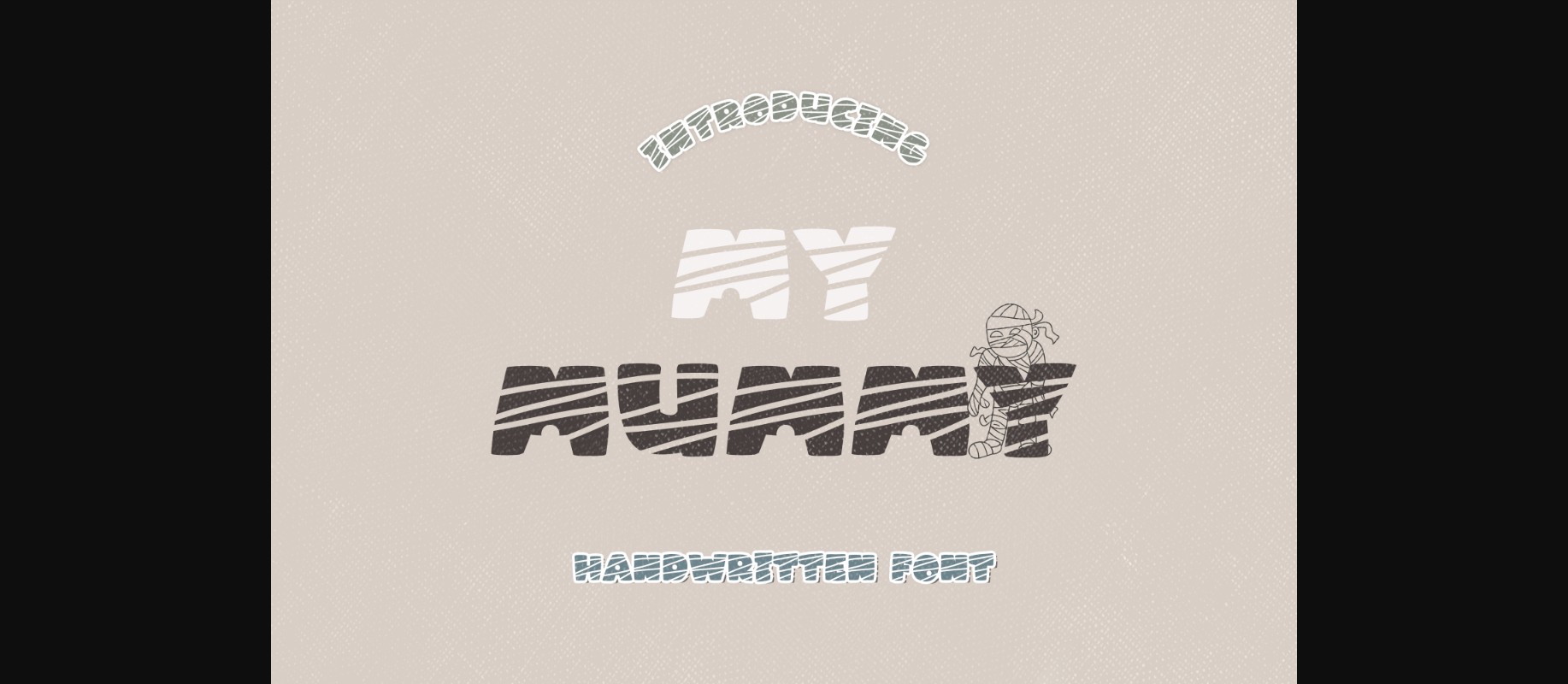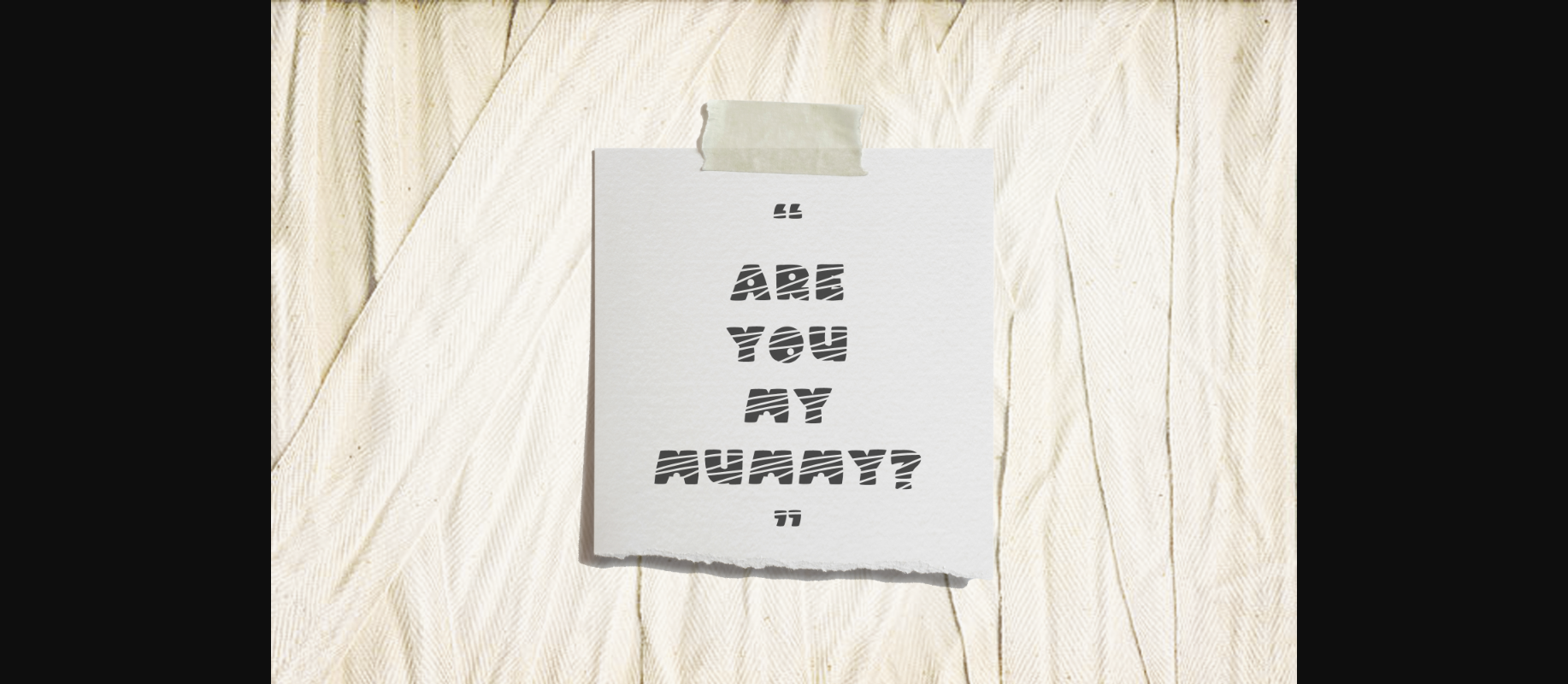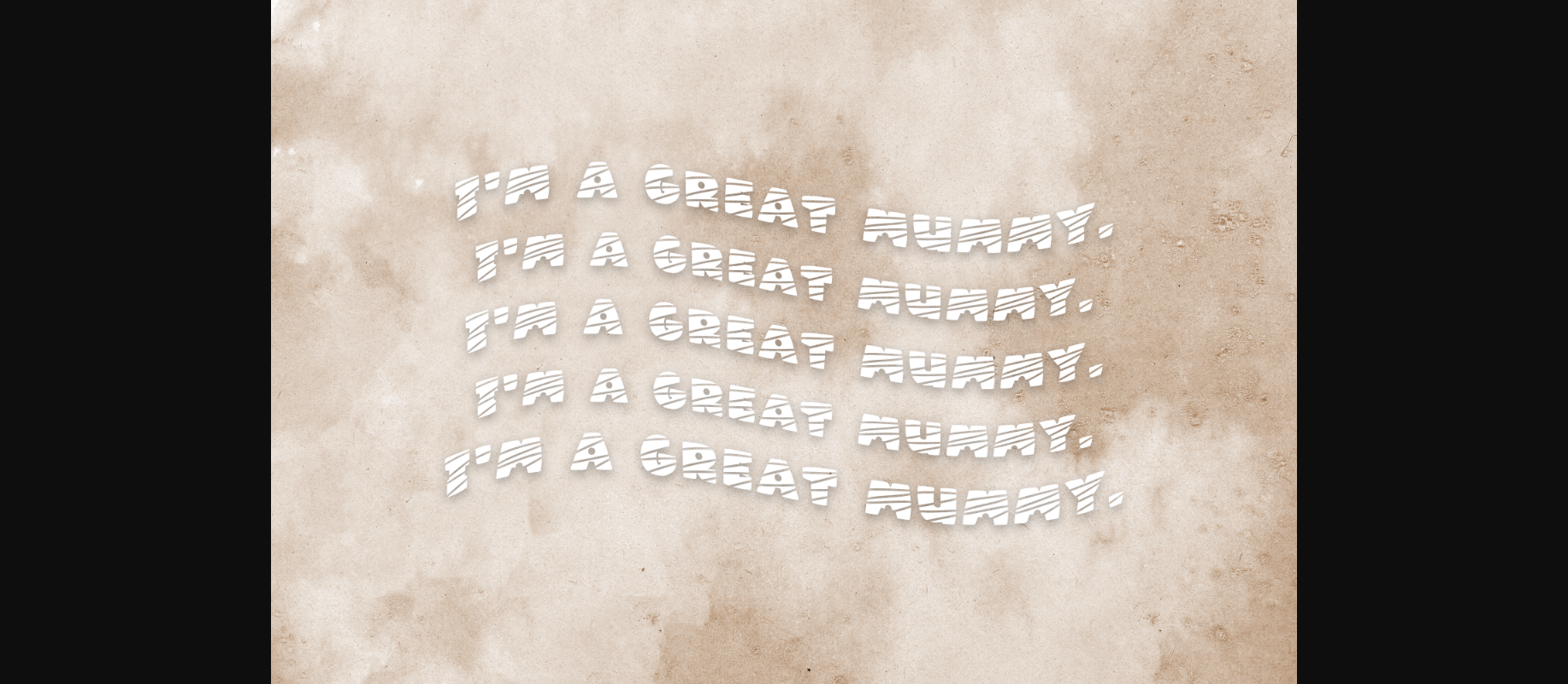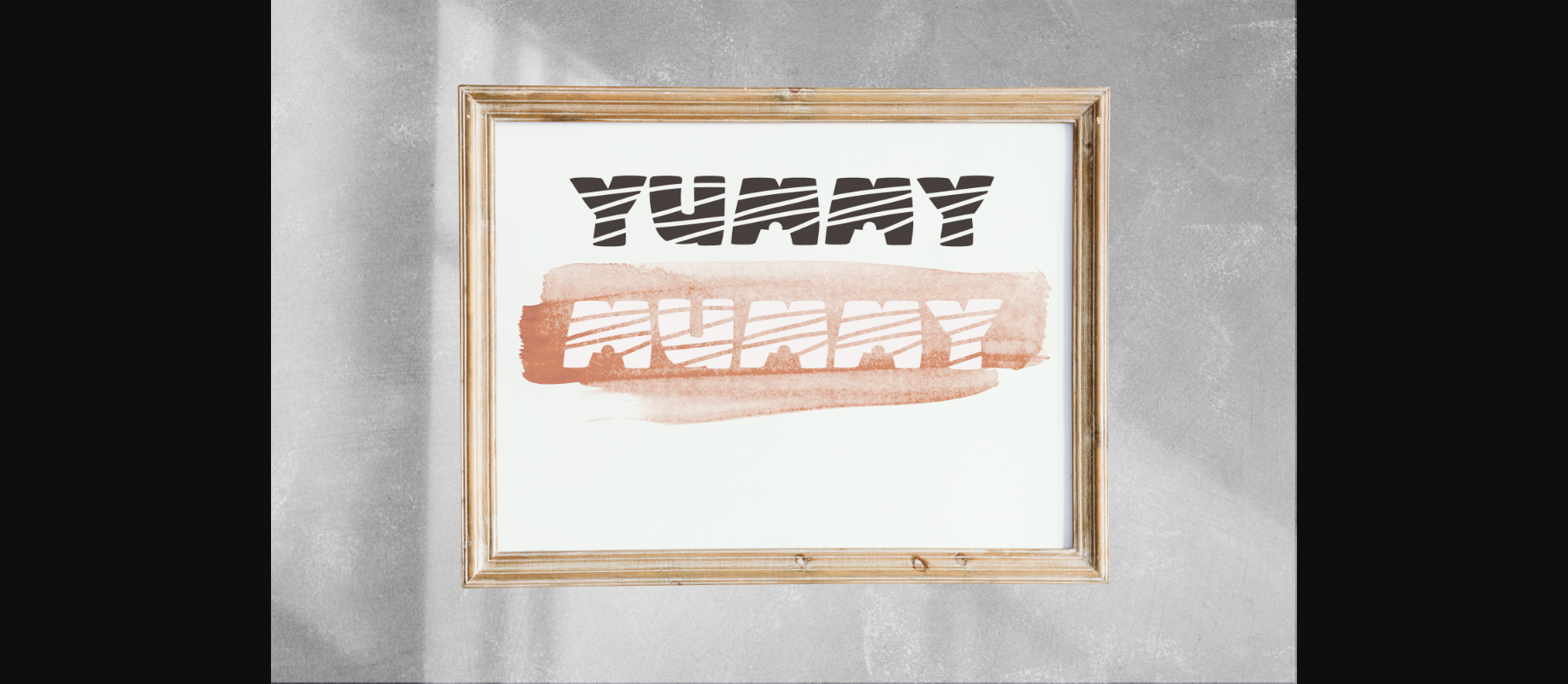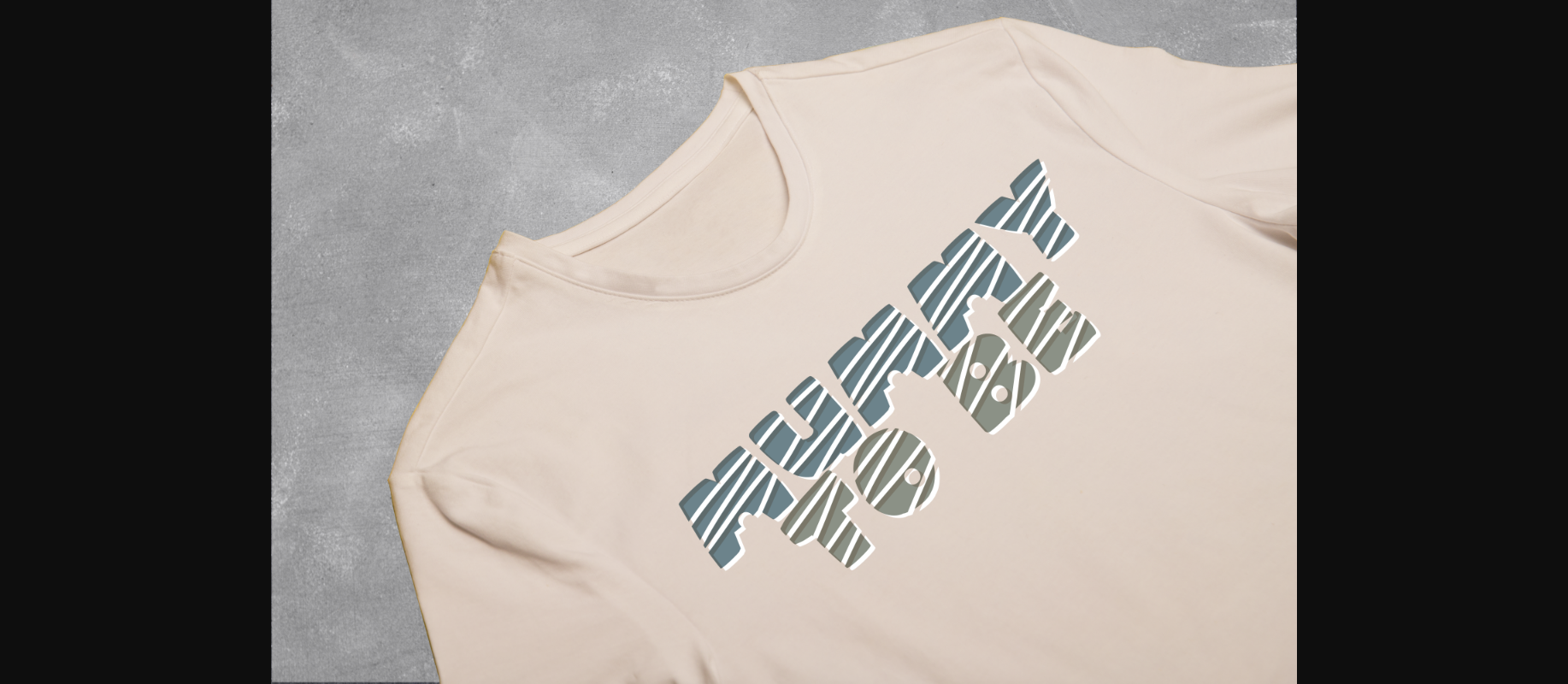
My Mummy Font
About My Mummy Font
My Mummy is a cute patterned decorative font. Get inspired by its incredibly playful feel. Use this font to turn any design project into a standout!